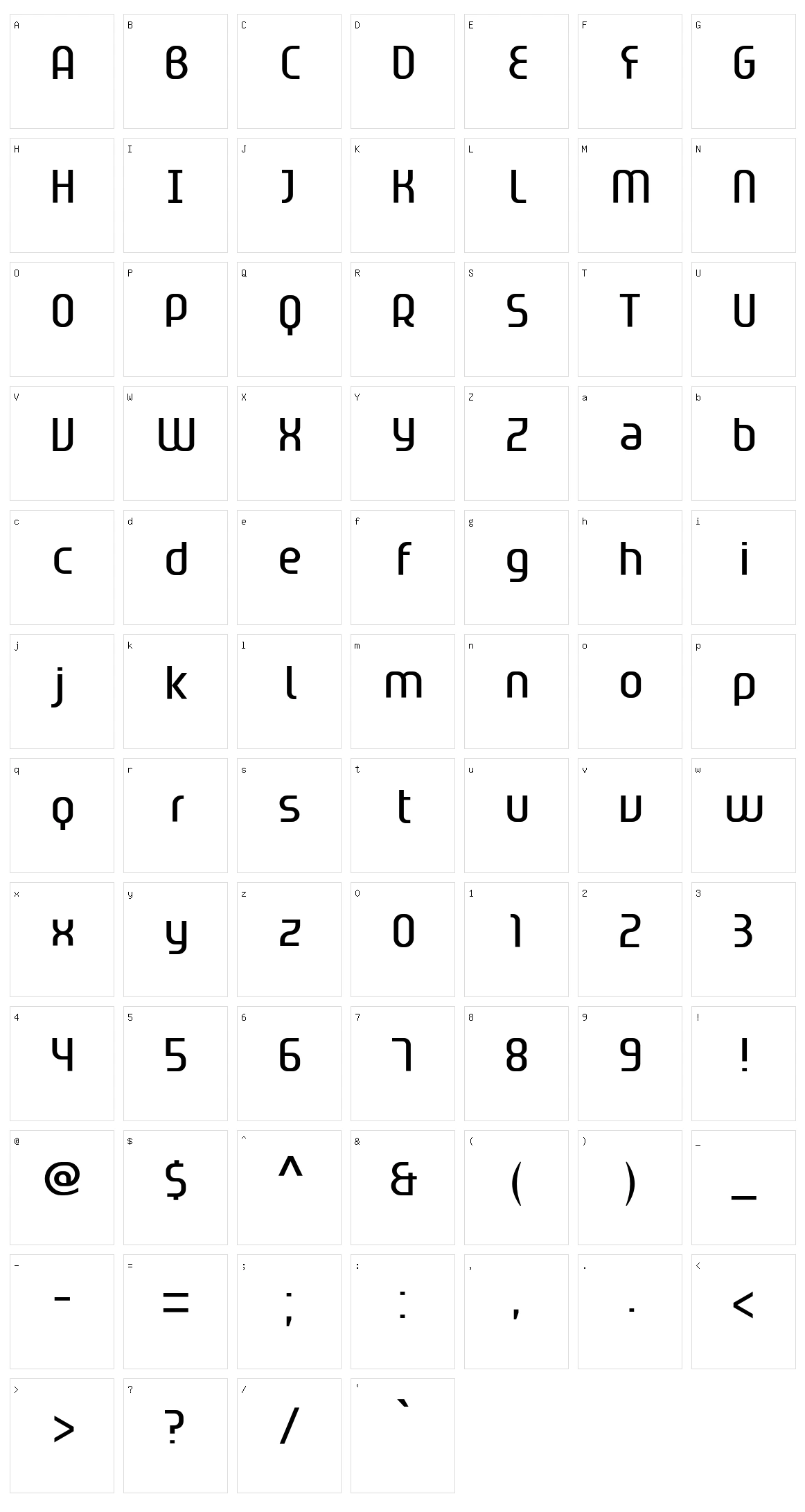
The free font Spion Verpflanzung is carefully designed by Peridot Kitchen-Sink, showcasing a thoughtful balance of creativity and usability and falls under the Sans serif font style. When you download the ZIP file, it contains only 6.03 KB of font files, making it lightweight and quick to download. Please review the license details below to understand permitted usage and distribution rights. If license information is not available, we recommend using this font for personal projects only or contacting the author directly for commercial usage permissions.